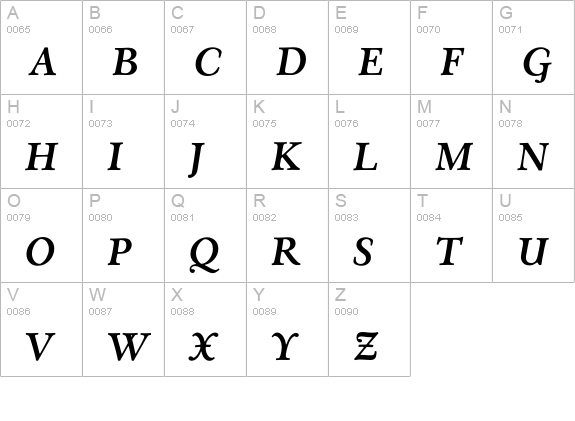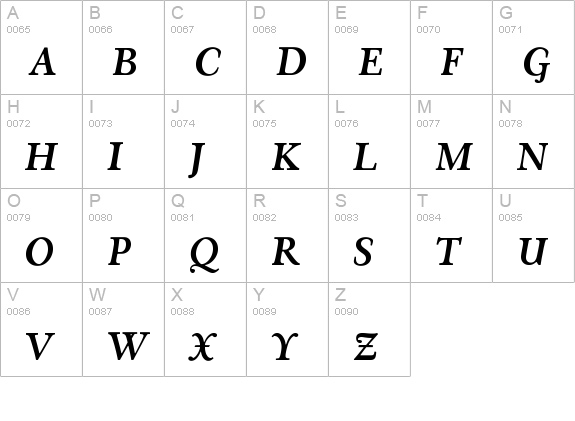
Eldorado-BoldItalic is a striking and elegant font that exudes confidence and sophistication. Its bold and italic styling combines to create a captivating and dynamic appearance that is perfect for headlines, logos, and other design projects that require a touch of flair. The sleek and modern design of Eldorado-BoldItalic makes it a versatile choice for a wide range of creative applications. And the best part? Eldorado-BoldItalic is available for free download at FontsMarket.com. This means you can easily access this stunning font to enhance your designs without any cost. Whether you are a professional designer or a hobbyist looking to elevate your projects, Eldorado-BoldItalic offers a high-quality and stylish option that is just a click away. Download Eldorado-BoldItalic today and elevate your designs with this impressive and eye-catching font.